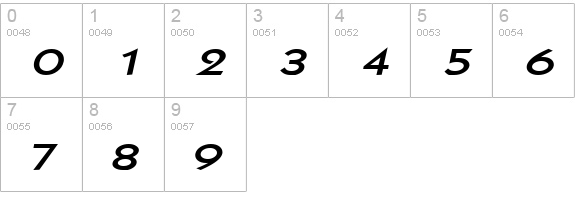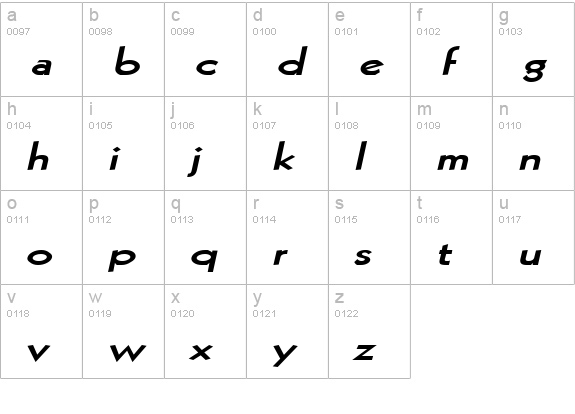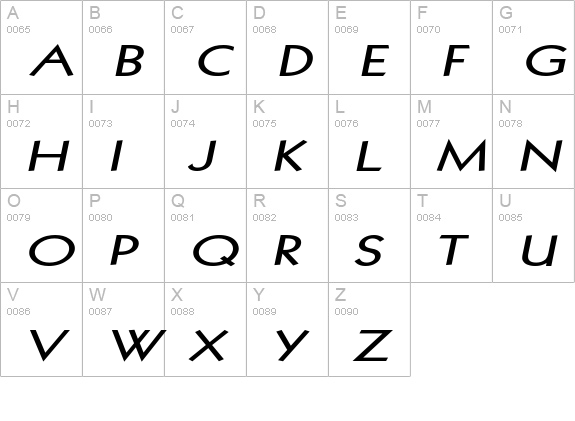
Geo 112 Extended Bold Italic is a strong, high-contrast, extended-width, italic variant in the Geo typeface family \xE2\x80\x94 well suited to headlines, attention-grabbing titles, and strong calls-to-action.
Geo 112 Extended Bold Italic font is a bold and dynamic typeface designed to make a strong statement in your design projects. Its sleek and modern appearance exudes confidence and sophistication, making it ideal for headings, titles, and branding materials. The italicized style adds a touch of elegance and flair to any text, while the extended characters provide a unique and eye-catching look. What makes Geo 112 Extended Bold Italic font even more appealing is that it is available for free download at FontsMarket.com. This means you can easily access this versatile and stylish font to enhance your creative projects without any cost. Whether you are working on a website, poster, or logo design, Geo 112 Extended Bold Italic font is sure to elevate your typography game and leave a lasting impression. Download it today and unleash your creativity with this exceptional typeface.